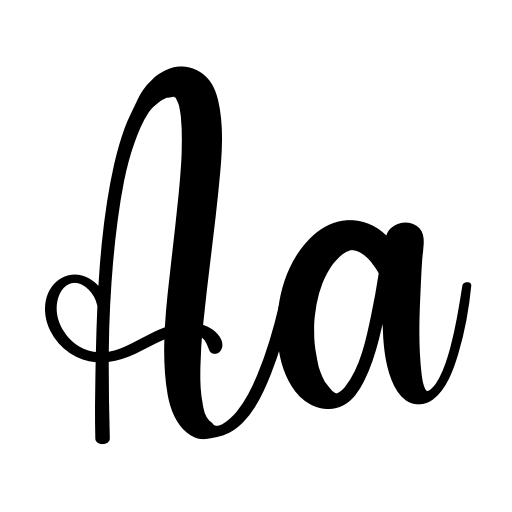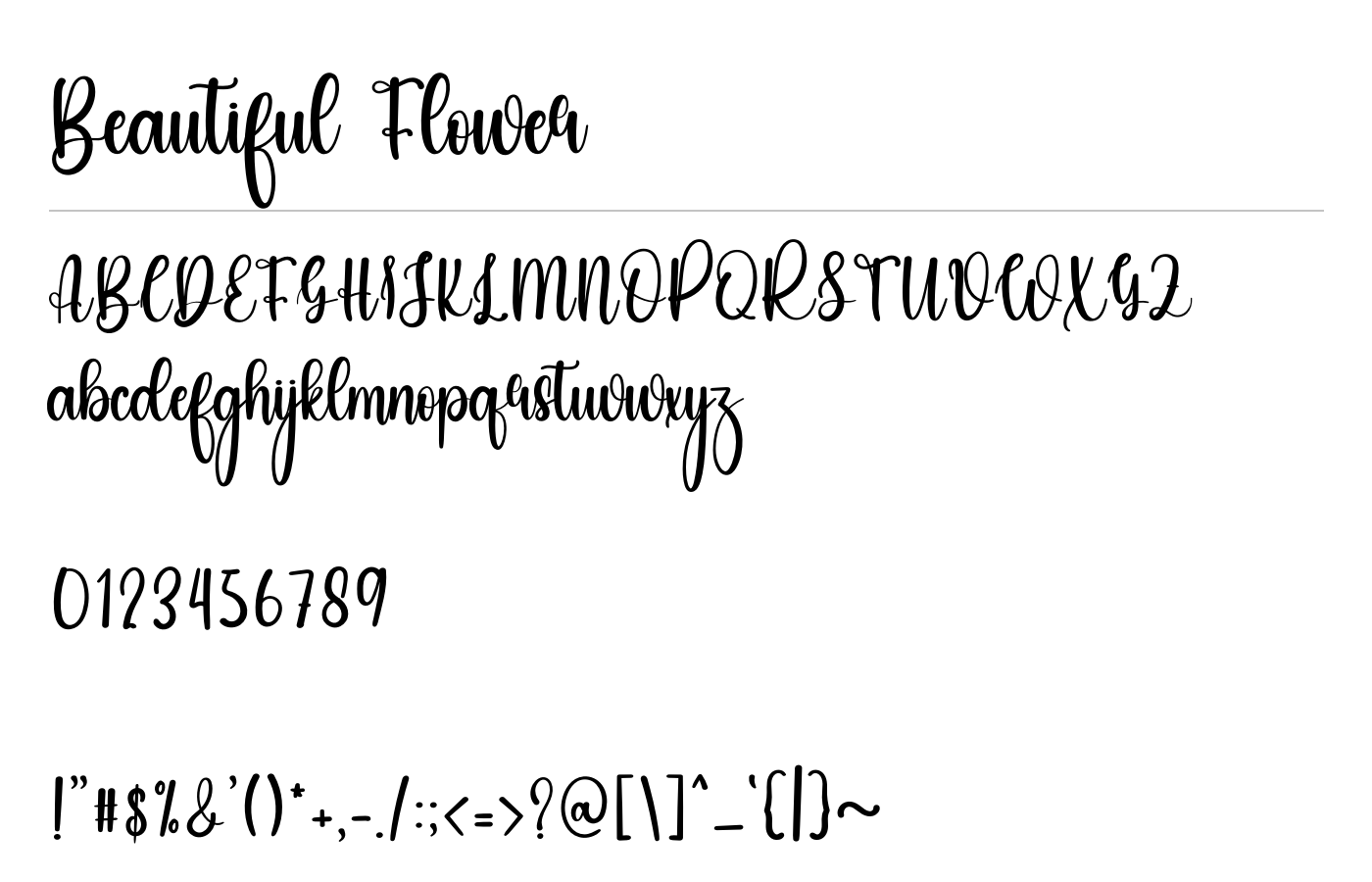
Beautiful Flower is a charming script font featuring fluid, hand-drawn letterforms with elegant loops and soft rounded strokes that give it a playful yet graceful personality. Its tall x-height and consistent stroke weight make it readable while maintaining a whimsical, artistic feel, ideal for creative branding, invitations, and feminine design projects that need a touch of warmth and personality.
Beautiful Flower Font
About Beautiful Flower Font
| Font family | Beautiful Flower Font |